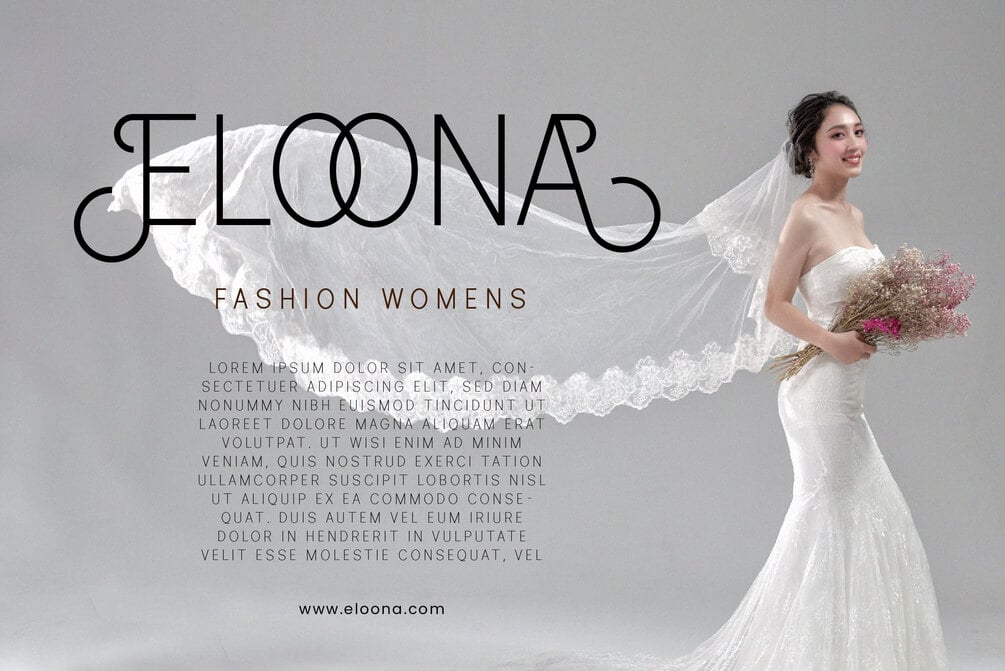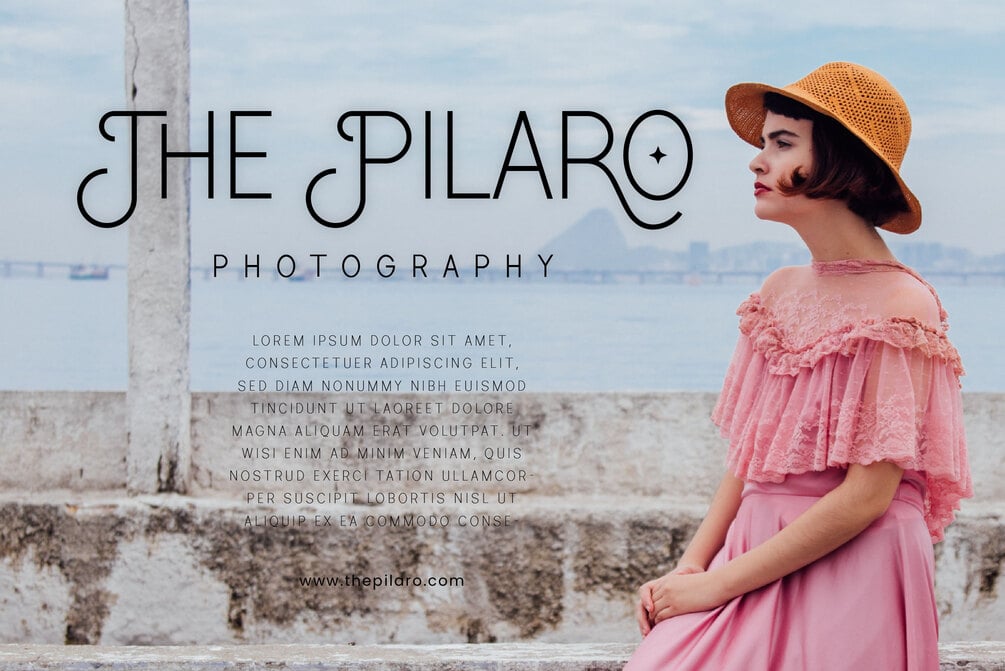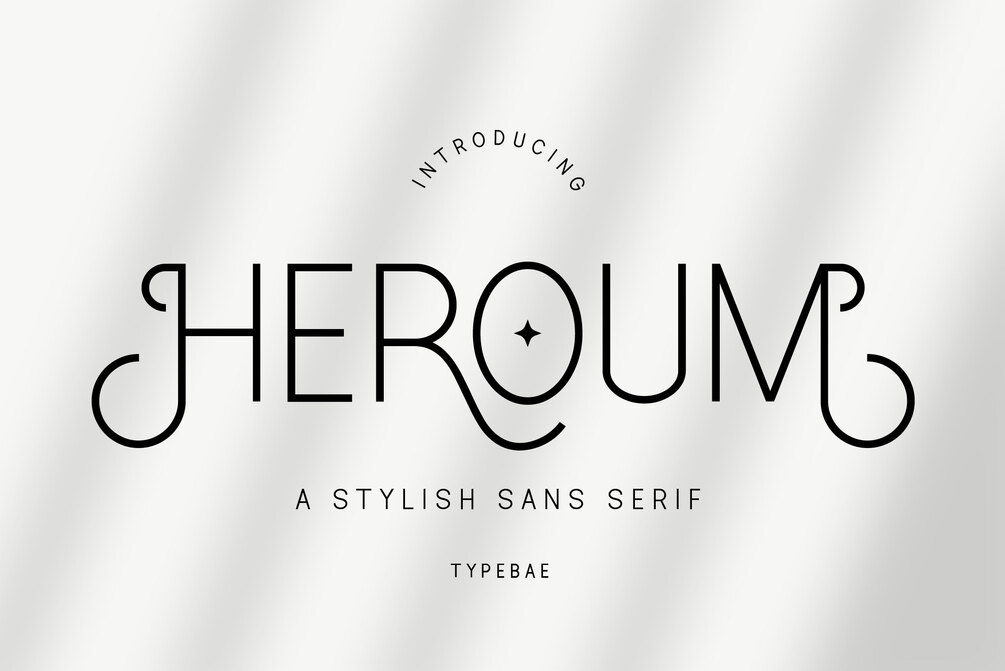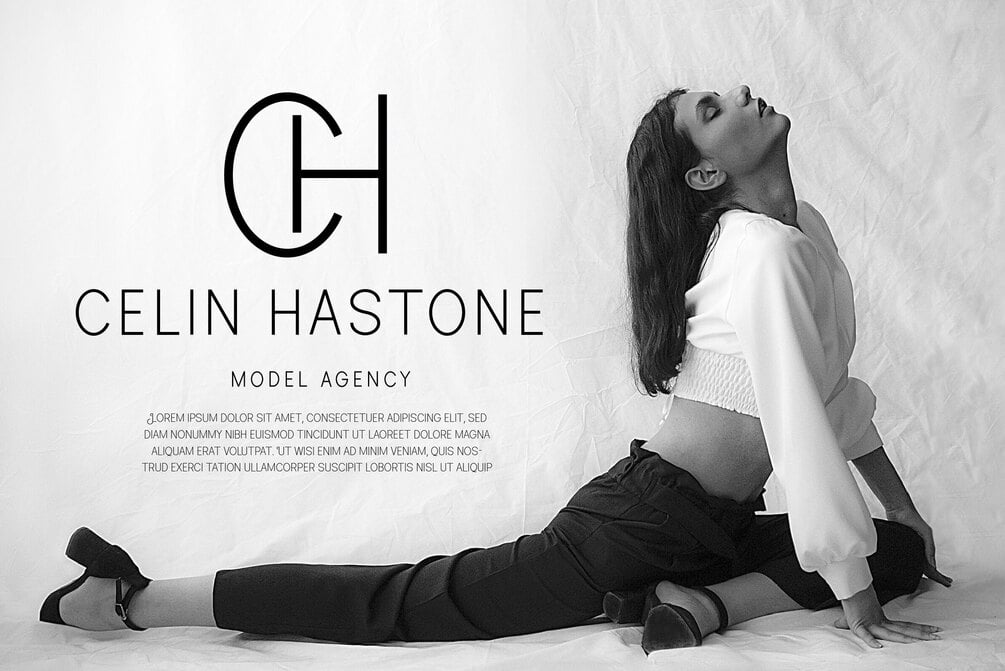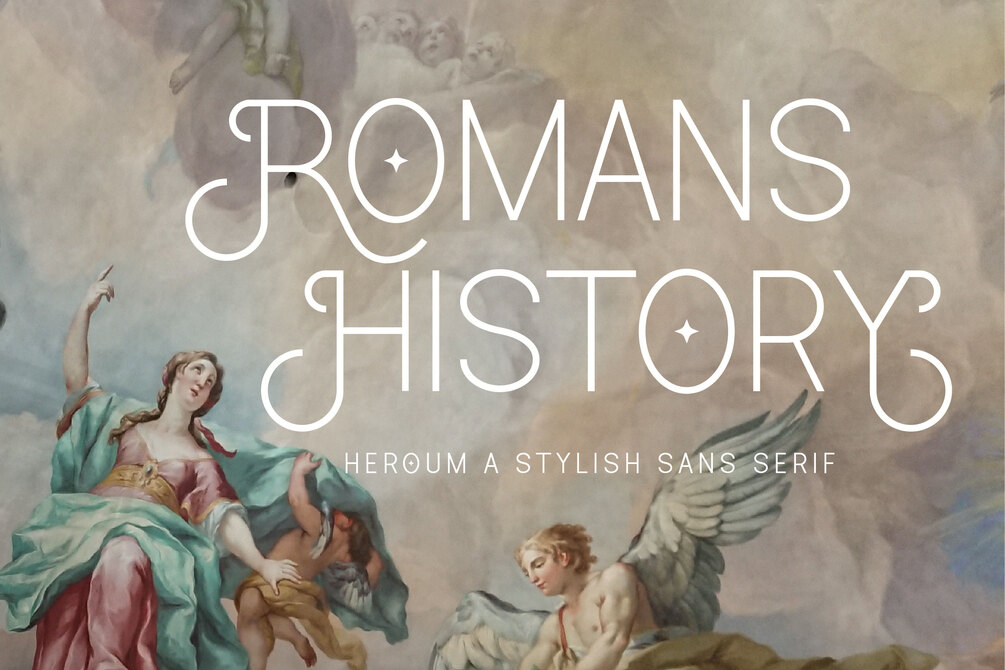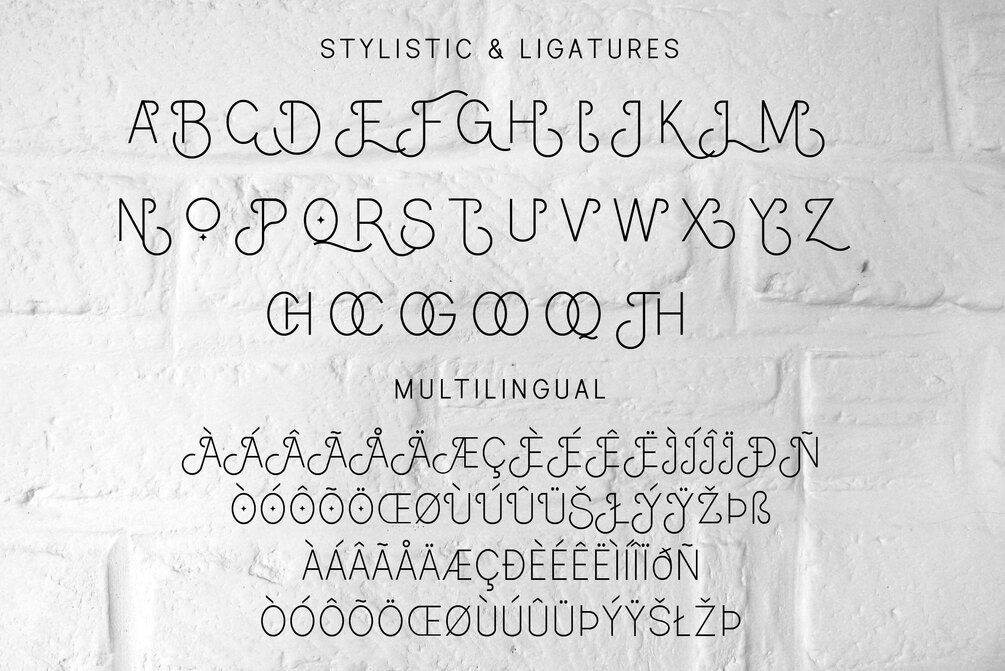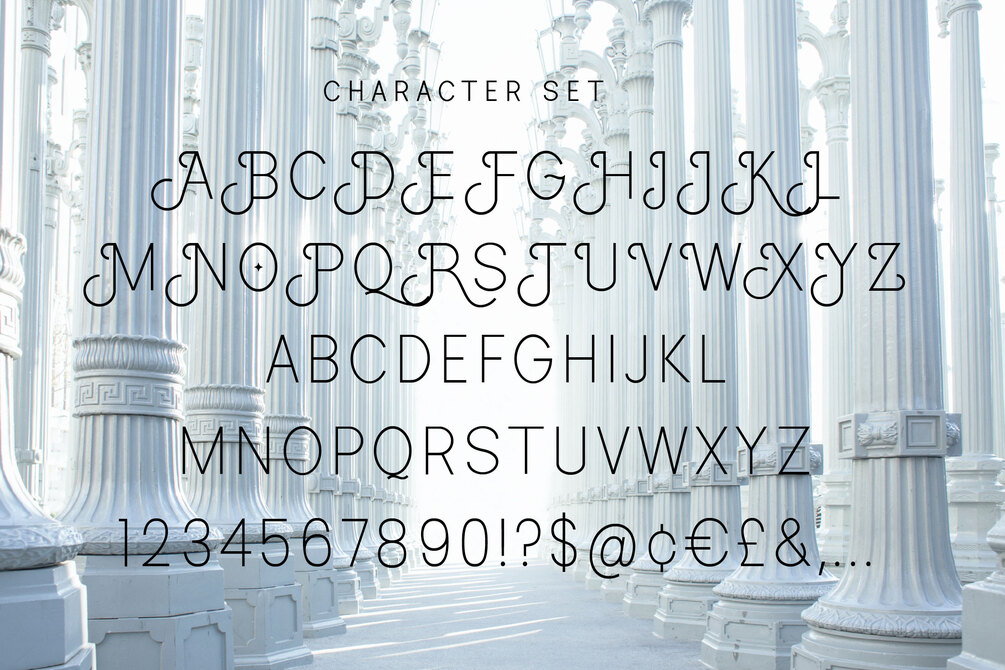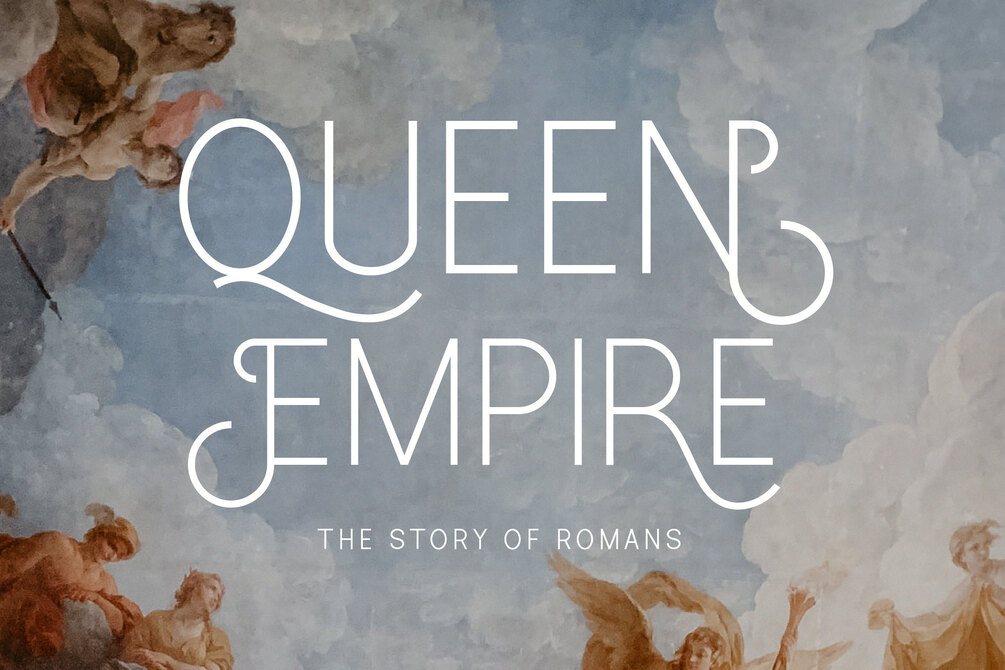
Heroum
Introducing Heroum Stylish Sans Serif Typeface
Heroum is stylish and beautiful sans serif font. It will look perfect in photography designs, watermarks, social media posts, advertisements, logos, branding, and various other projects.
- Uppercase & Lowercase
- Numbers & Punctuation
- Ligature & Alternate
- Multilingual Support